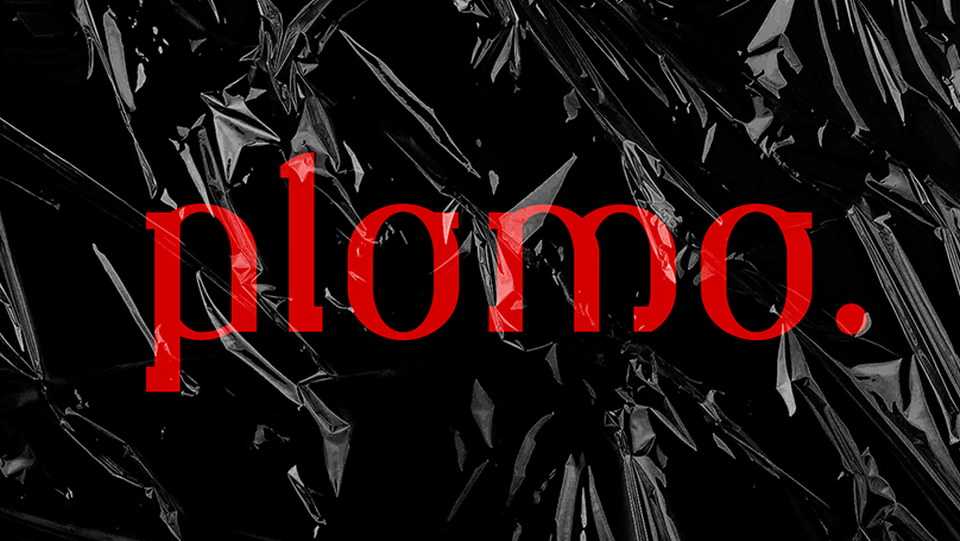
Download Plomo font, an experimental and modular font that arises form the need to deal with the Art Deco typographic style from the point of view of a slab serif type.